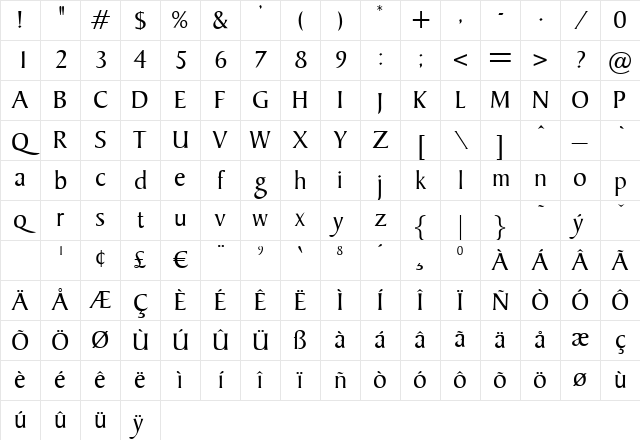
K690-Flare Regular
Design Context for K690-Flare
K690-Flare is a composed and adaptable typeface that performs quietly and consistently across a wide range of design contexts.